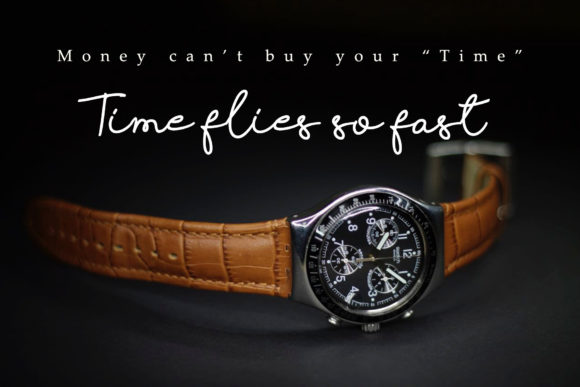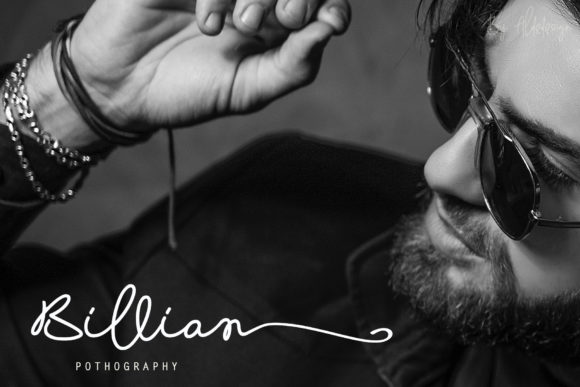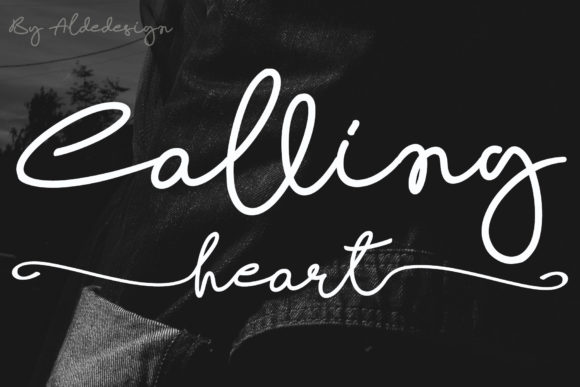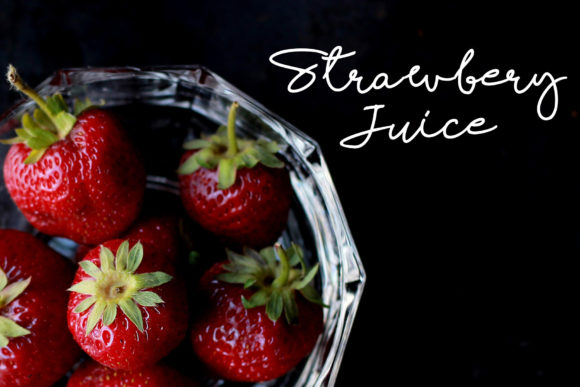
Introduction to Magic Anomali Font
Magic Anomali is a font with an awesome and classy taste.
It has a natural, yet elegant touch and is absolutely easy to use .
Key Features of Magic Anomali Font